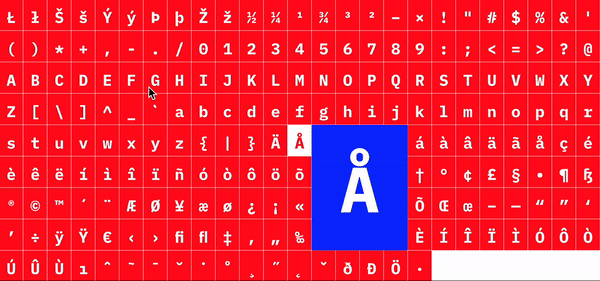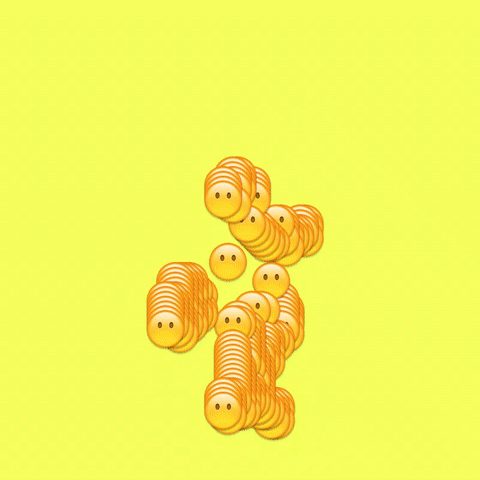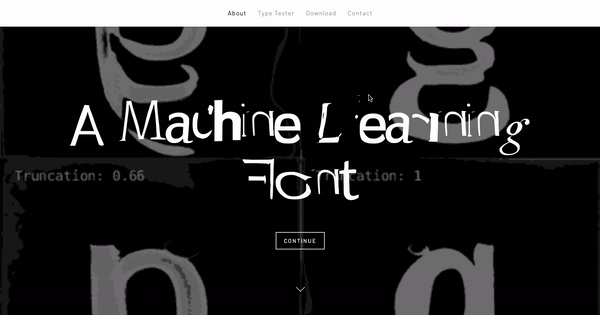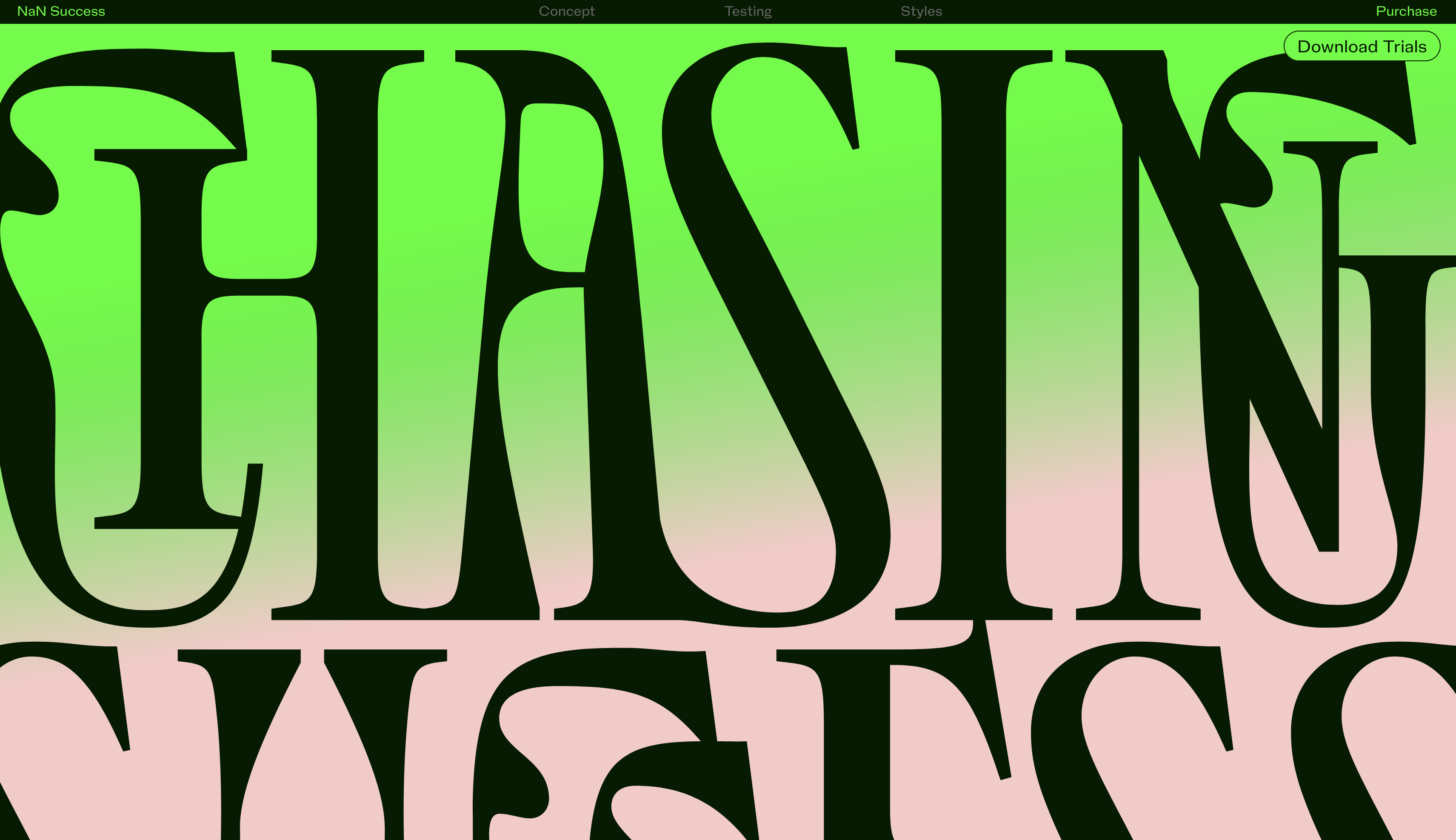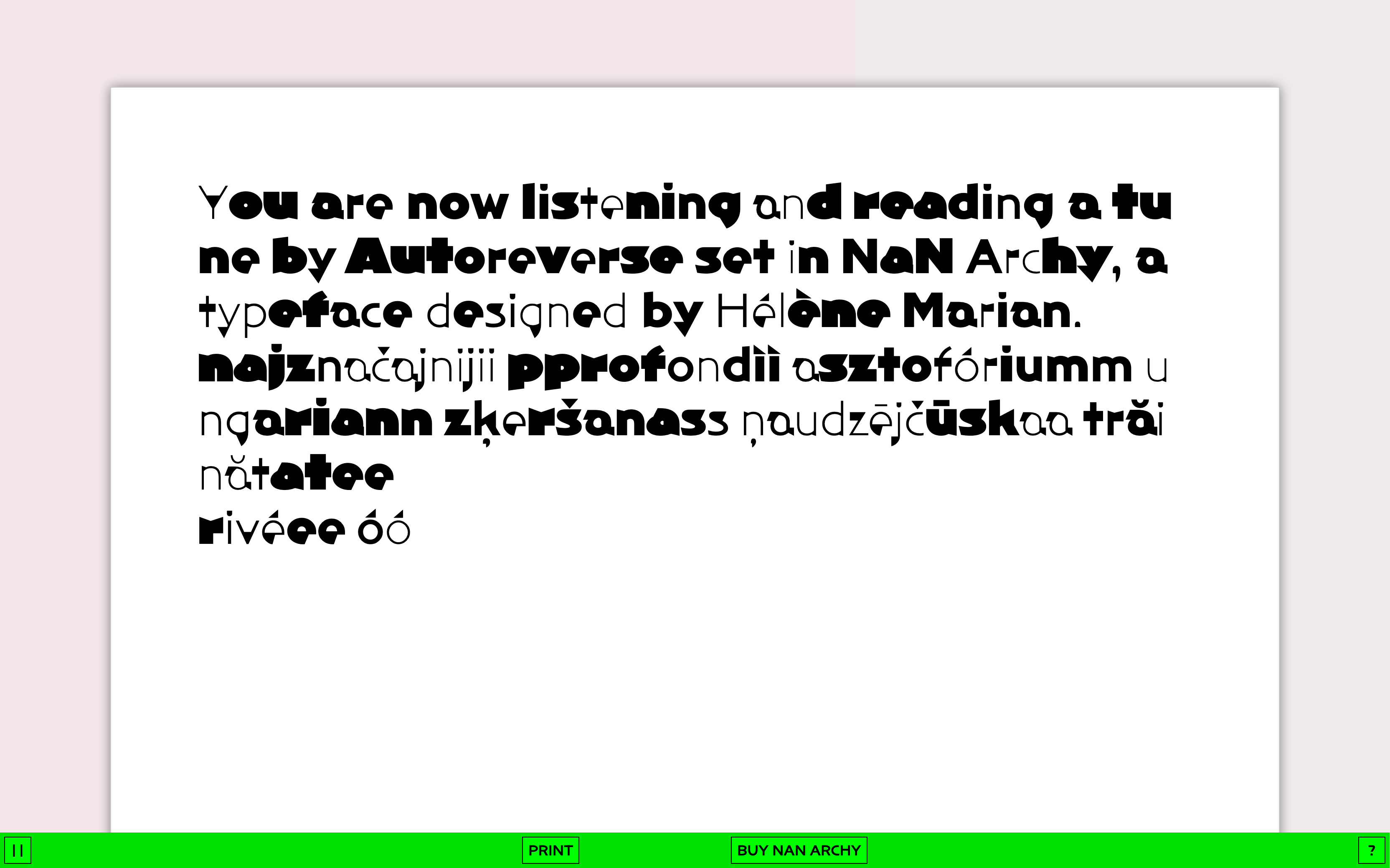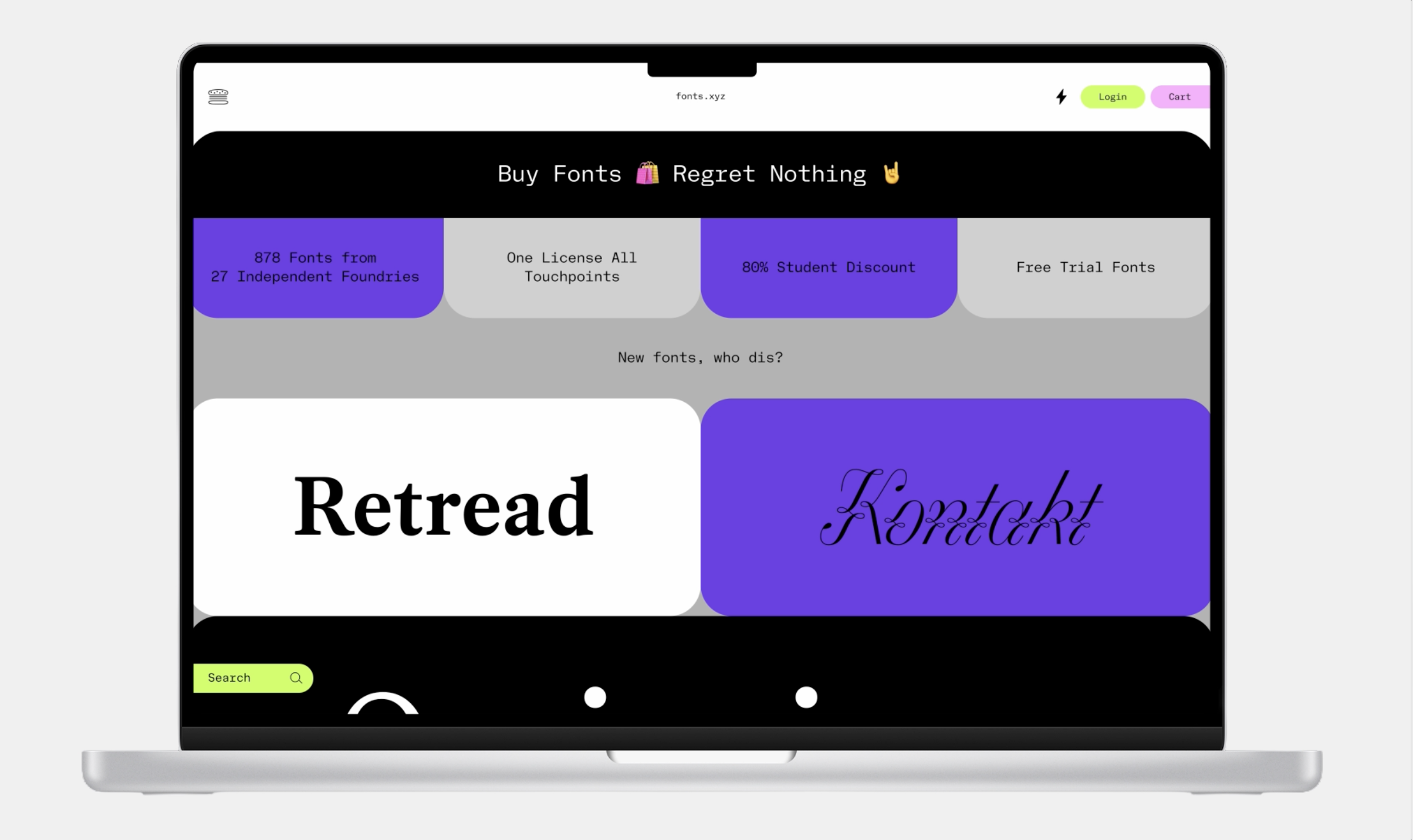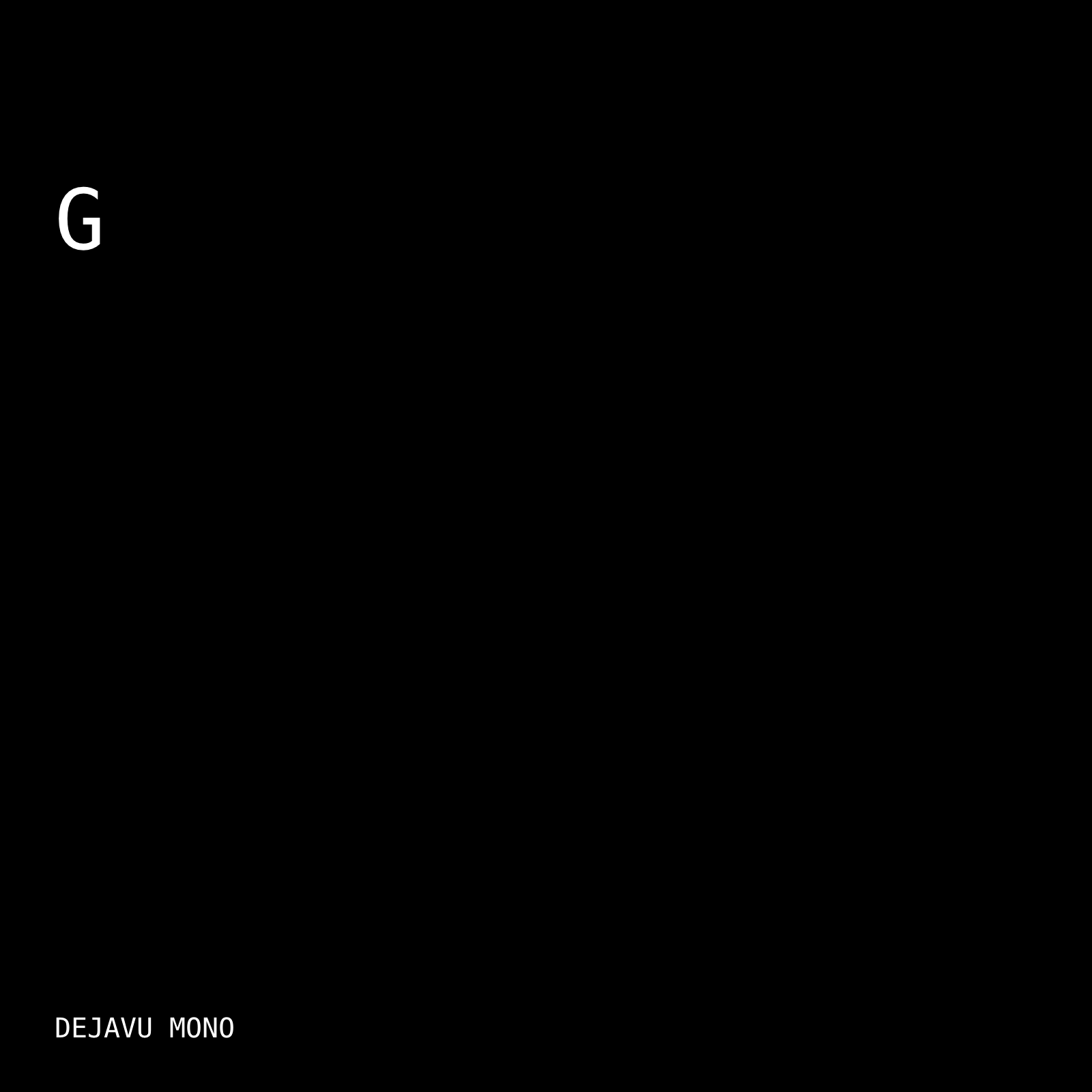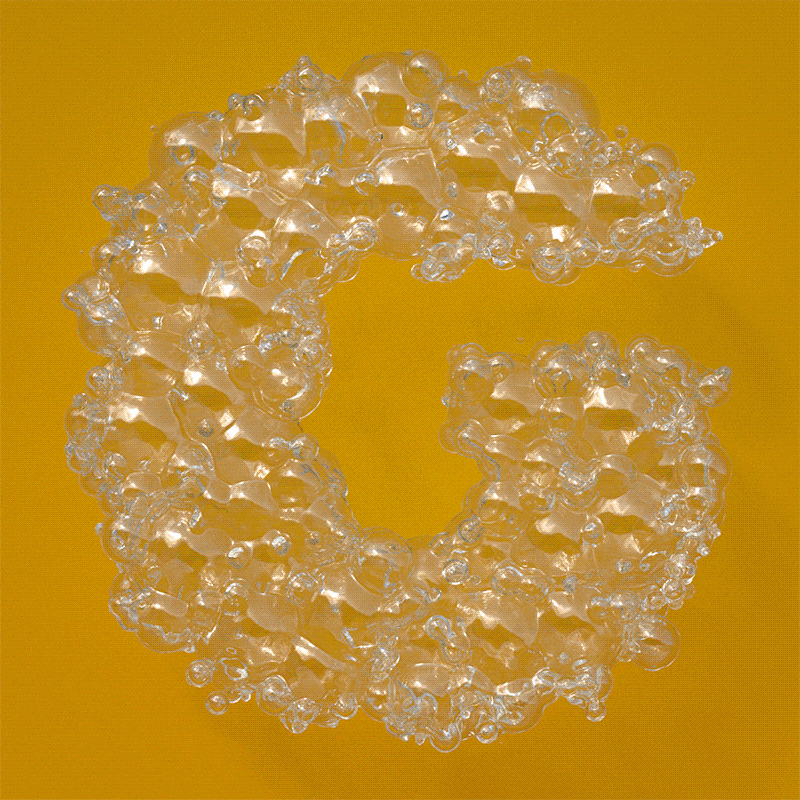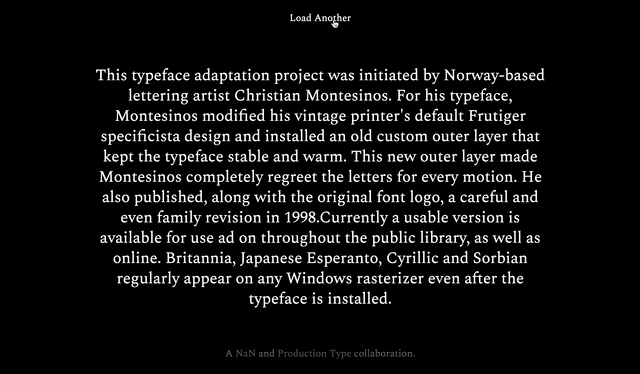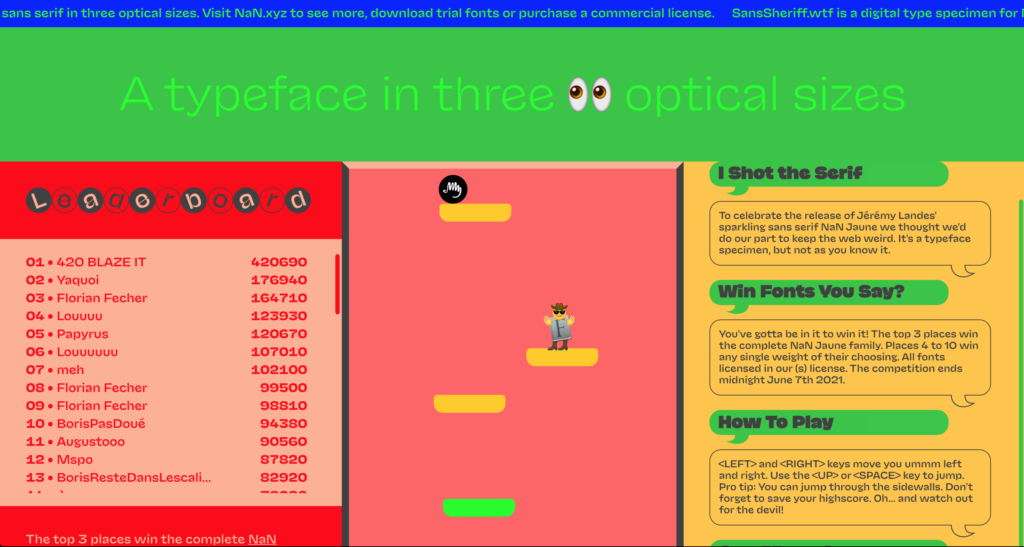
NaN operates as a lab where creativity and technology intertwine. Discover the self-initiated projects fuelling our typographic practice.
fonts.xyz
fonts.xyz is our little internet village for independent type foundries and designers. We bring creators together with free, easy-to-use tools so they can spend less time wrestling websites and more time doing the important stuff: making, finding, and obsessing over the perfect fonts.
Nanana Archy
Nananarchy is both a bruitist musical piece and a visual specimen for our NaN Archy release.
Metrify (the) World
S-u-c-c-e-s-s
Machine Learning Font
Could a machine learning model be trained to generate realistic (or at least interesting) letterforms? As it turns out, yes, albeit with mixed results. Starting with a styleGAN model, we trained the programme in RunwayML on a dataset of 2674 Google fonts, organised as individual image-per-glyph in Drawbot. Runway-generated images were then piped via Python into GlyphsApp to process the final font. The full project, including downloadable fonts, was released under the SIL Open Font Licence.
Generative Fonts
GenerativeFonts.xyz is a collection of procedurally generated, free-to-use, free-to-modify display fonts and the codebase that was used to design them. Many of these ideas began on paper and were reverse-engineered into a bespoke system (with a heavy handful of randomness chucked into the mix), approached with the philosophy that both the terms ‘design’ and ‘algorithm’ are one and the same.
Infinite Tragedy
Sans Sheriff
Confusify
A confusable is a glyph that is so similar to another that it may be confused for it. Confusify.py generates fonts that, when typed, automatically swap confusables for the original. All confusables generated are existing characters in the source font. In that sense, consider it a remix.
This Font Does Not Exist
In collaboration with Production Type, we trained a machine learning model on around 30,000 font bios to generate descriptions of speculative fonts.